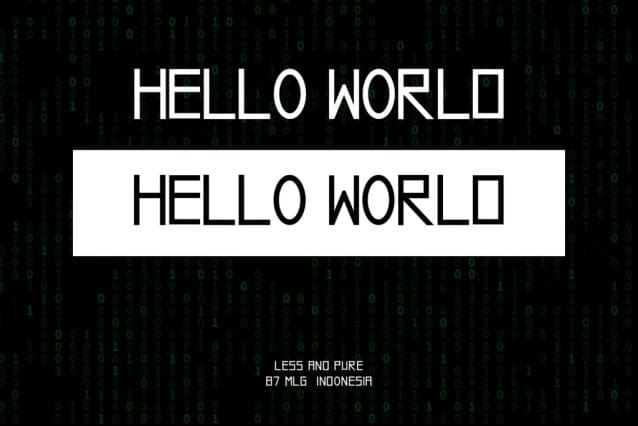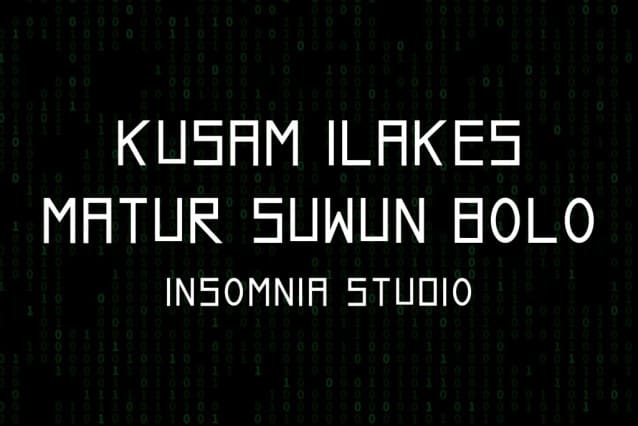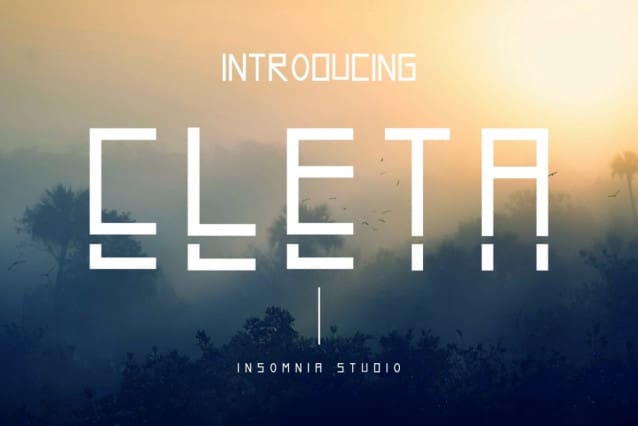
Cleta Font, You can use it as a logo, badge, insignia, packaging, headline, poster, t-shirt/apparel, greeting card, and wedding invitation.
Cleta Font
| Classification: | Display Fonts, Sans Serif Fonts, Techno / Futuristic Fonts |